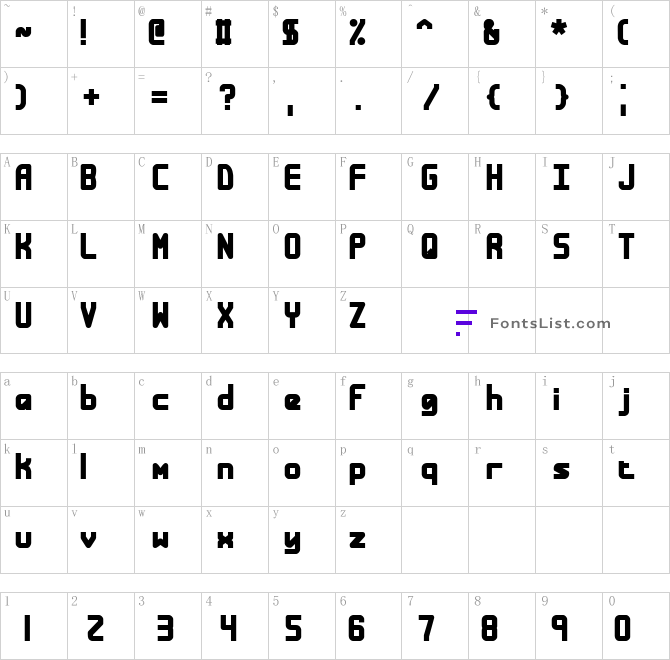
- Font Name:Bandwidth Bandless (BRK)
Bandwidth-Bandless-BRK-.ttf is a very beautiful artistic font, Bandwidth-Bandless-BRK-.ttf is widely used in the design and printing of various books and pictures,Bandwidth-Bandless-BRK-.ttf has a strong visual impact,Bandwidth-Bandless-BRK-.ttf is a commonly used font in newspapers, magazines and books, and is used in posters, e-commerce Poster design, store design, logo design, font design and other fields.Bandwidth-Bandless-BRK-.